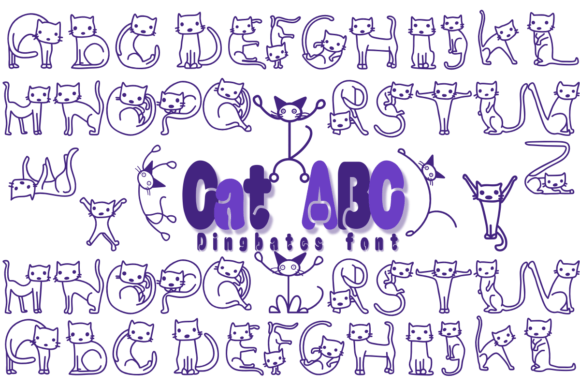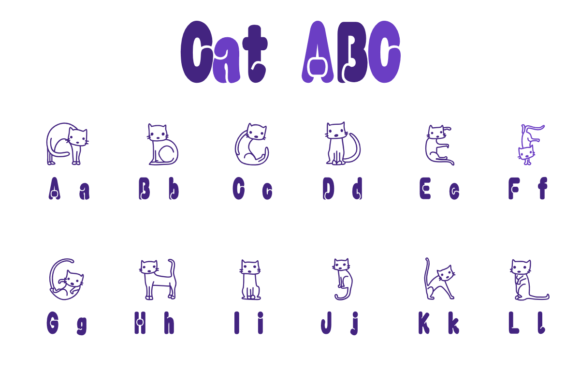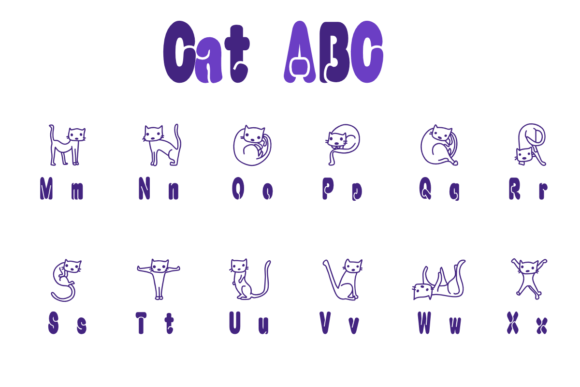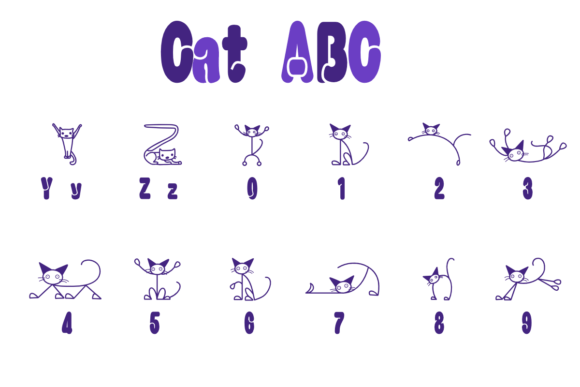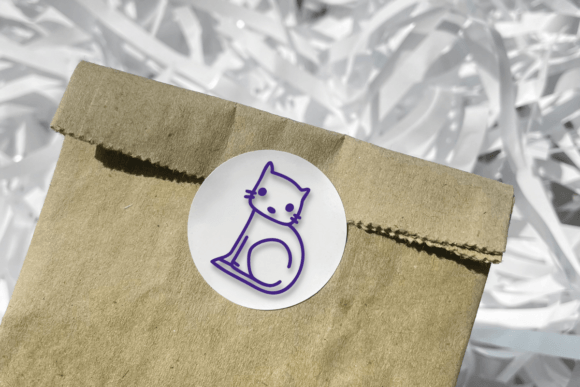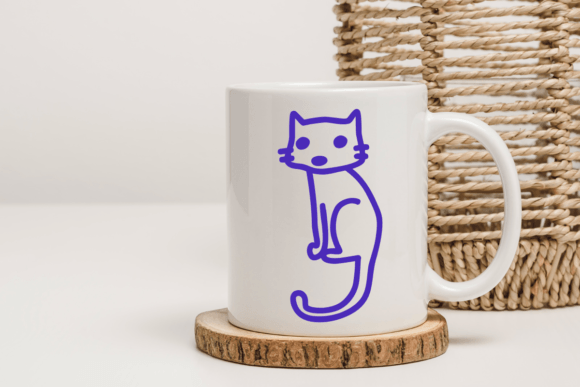
Cats Meet Typography: The Adorable World of Cat Abc Font
Who hasn’t had one of those moments where you’re brainstorming ideas for a creative project, and suddenly a furry friend saunters into the room, stealing the spotlight? That’s exactly what happened to me when I stumbled upon the Cat Abc Font. I was working on a design project, and my cat, Luna, decided to ‘help’ by curling up on my lap. As I gazed at her adorable face, I had an epiphany: what if letters could be as cute as cats?
Enter Cat Abc Font, a charming typographic innovation that replaces regular letters with adorable cat pictures. Each letter is a unique, hand-drawn illustration of a cat, making it a delight for cat lovers and designers alike. For designers, Cat Abc Font offers a fresh, playful way to add personality to their projects, from children’s books to social media campaigns. Its value lies in its ability to convey a sense of whimsy and fun, making it an invaluable tool for anyone looking to inject some joy into their design work.
Cat Abc Font Key Features
- Font Style: A unique, hand-drawn font with a playful and whimsical feel.
- Character Set: Supports a wide range of characters, including uppercase and lowercase letters, numbers, and punctuation marks.
- Unique Characteristics: Features a distinctive, hand-drawn style with subtle imperfections, giving it a personal and charming feel.
Designer Review: Cat Abc Font
Overall, the Cat Abc Font is a cute and quirky addition to any digital project. ✨ It’s perfect for designers looking to add a playful touch to their work, and its versatility makes it suitable for a wide range of applications.
- Unique and recognizable characters that add a touch of whimsy to any text
- Well-designed letterforms that are easy to read and understand, even at small font sizes
- Good contrast between light and dark colors, making it suitable for both light and dark backgrounds
- ⚠️ Limited font sizes and styles – it’s best used at a medium to large size, as it can become too playful at smaller sizes
- ⚠️ May not be suitable for formal or professional projects, as it’s too whimsical for some audiences
In conclusion, the Cat Abc Font is a fun and playful addition to any designer’s toolkit. While it has some limitations, its unique characters and well-designed letterforms make it a great choice for designers looking to add a touch of personality to their work.
For best results, use the Cat ABC Font for headings and titles to add a playful touch to your design.
Use the Cat ABC Font for creative typography and add a whimsical touch to your designs.
Use the Cat ABC Font for headings and titles to add a playful touch to your presentations and documents.
The Cat ABC Font is perfect for:
Children’s book illustrations and designs
Playful branding and marketing materials
Creative typography and graphics
Adding a whimsical touch to your designs
Alternatives to Cat Abc Font
The Great Vibes Font is a modern, elegant script font that works well for creating a sense of style and sophistication. It is ideal for titles, headings, and short paragraphs where a touch of elegance is required. Compared to Cat Abc Font, Great Vibes Font has a more refined and polished look, with a slightly more modern feel.